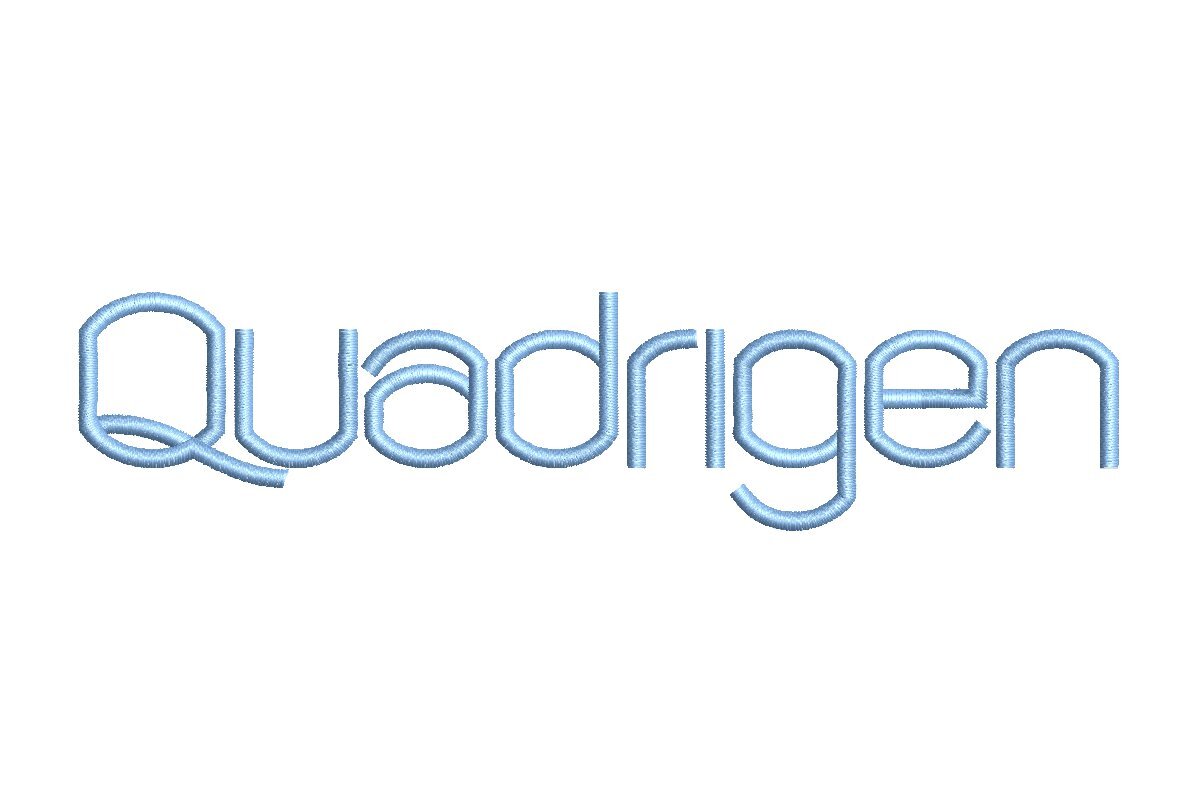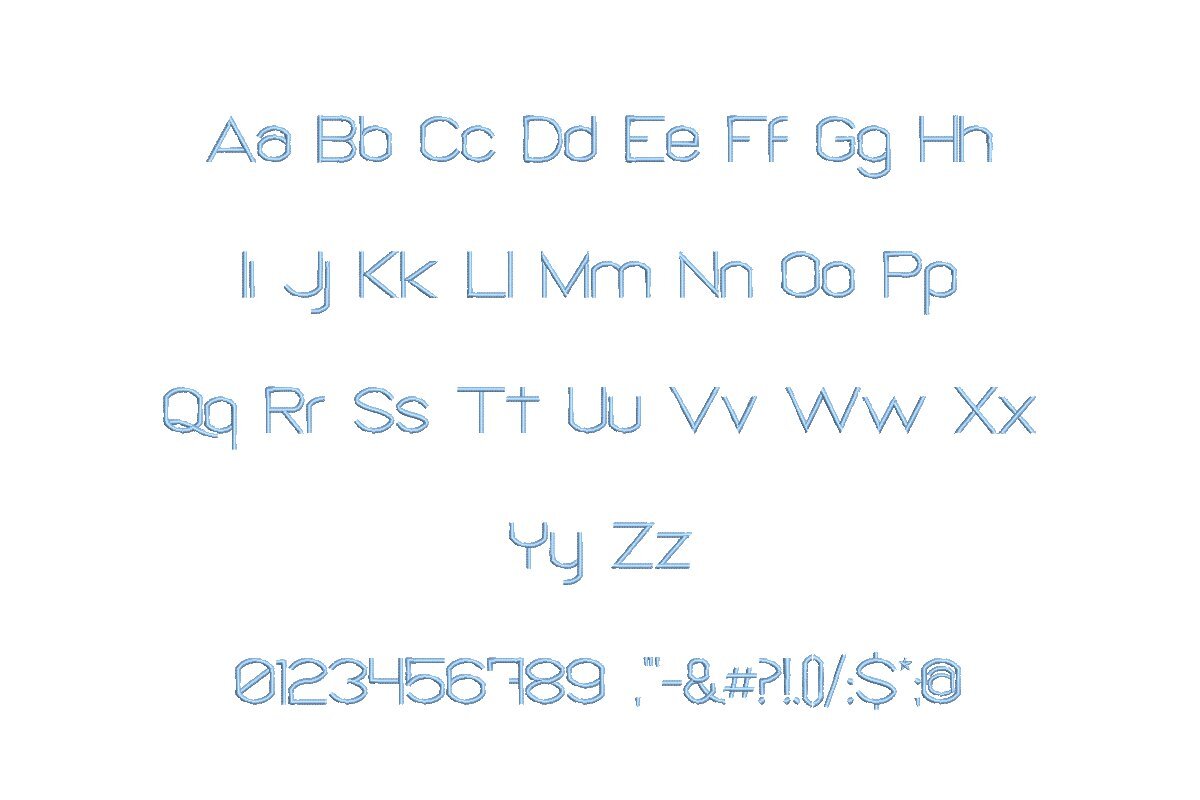
Introducing Quadrigen ESA Font - Your Gateway to Precision Embroidery! Tailored for seamless compatibility with Wilcom Studio e4.5.6 and Hatch 3 versions and beyond, this font is your key to achieving meticulous embroidery designs. Its clean, modern design adds a touch of sophistication to your projects, ensuring precision in every stitch. Achieve professional-grade embroidery with ease, thanks to this user-friendly digitized font. Dive into a world of creative possibilities with Quadrigen ESA Font and elevate your Wilcom Studio and Hatch software. Choose precision over the ordinary - upgrade today for an extraordinary embroidery journey. Your designs deserve nothing less than perfection.